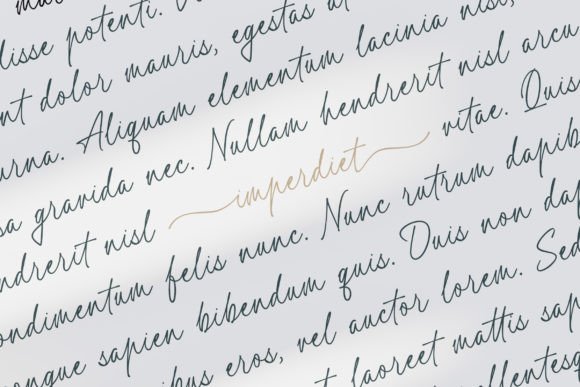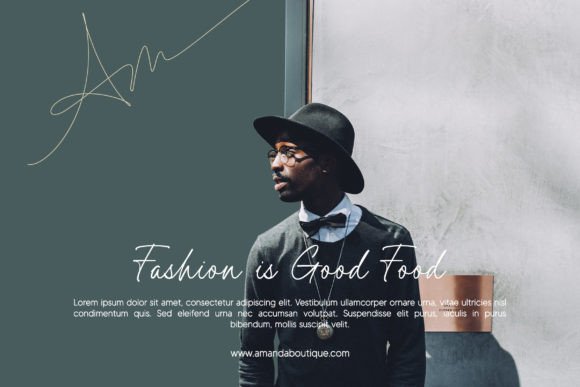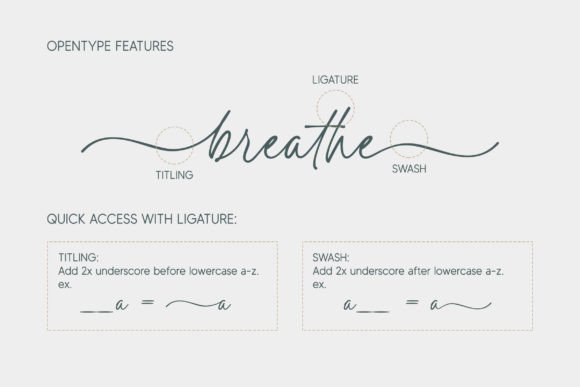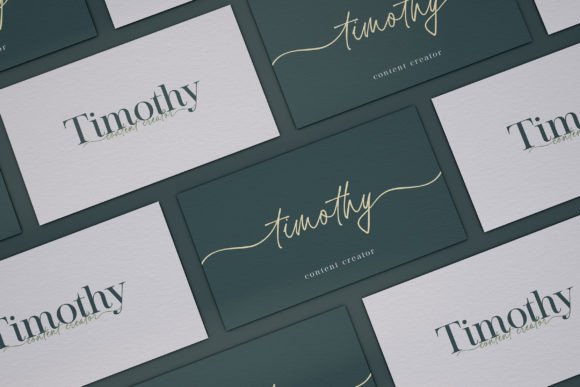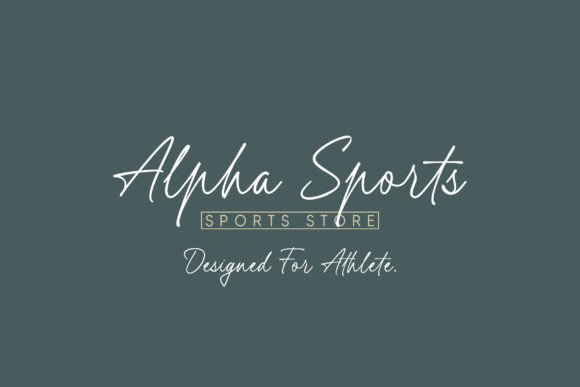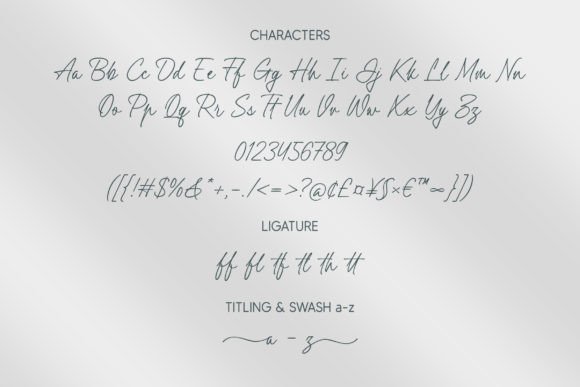
Introduction to Romantis Scene Font
Have you ever stumbled upon a design that makes your heart skip a beat? For designers, that moment of inspiration can be a game-changer. It’s the spark that sets off a creative fire, driving us to bring our ideas to life. And that’s exactly what happens when we discover the perfect font – one that elevates our project from ordinary to extraordinary. For those seeking that special something, we’re excited to introduce the Romantis Scene Font, a stunning script font that’s sure to captivate.
With its modern style and flowing curves, the Romantis Scene Font is a design resource that’s hard to resist. Its high quality and versatility make it an ideal choice for a wide range of creative projects, from logos and branding to invitations, stationery, and wedding designs. Plus, with a transparent background, it’s easy to customize and integrate into your design.
Key Features of Romantis Scene Font
- High-quality, elegant design suitable for various creative projects, including invitations, posters, and social media graphics.
- Unique characteristics include its cursive script and elegant flourishes, perfect for adding a touch of romance and sophistication to any design.
Honest Review: Romantis Scene Font
As a designer, I’m always on the lookout for unique and high-quality design resources to elevate my creative projects. The Romantis Scene Font caught my eye, and I was excited to give it a try. In this review, I’ll share my honest thoughts on what works well and what could be improved.
- ✨ Unique aesthetic: The Romantis Scene Font has a distinct, dreamy quality that’s perfect for romantic or whimsical designs.
- ⚠️ Limited font styles: While the Romantis Scene Font is unique, it’s limited to a single style, which may not be suitable for designs that require multiple font variations.
- ⚠️ Not ideal for bold typography: The font’s delicate nature may not be suitable for designs that require bold or attention-grabbing typography.
Overall, the Romantis Scene Font is a great addition to any designer’s toolkit, offering a unique aesthetic and transparent background options. While it may have some limitations, it’s a high-quality design resource that’s perfect for creative projects that require a touch of romance and whimsy.
Tips for Getting the Most Out of Romantis Scene Font
To get the most out of Romantis Scene Font, experiment with different font sizes, colors, and combinations. Use this font in conjunction with other design elements to create a visually appealing design.
Common Use Cases for Romantis Scene Font